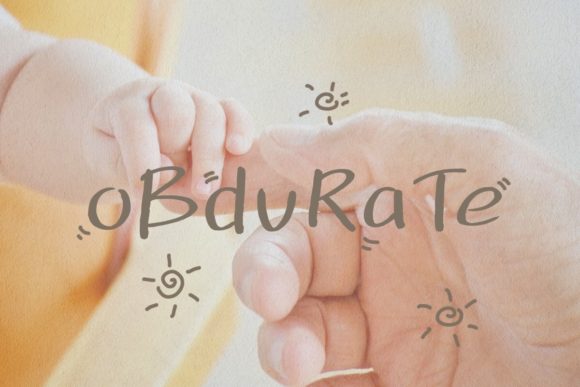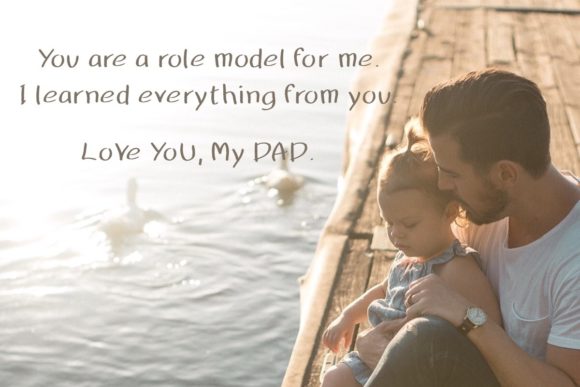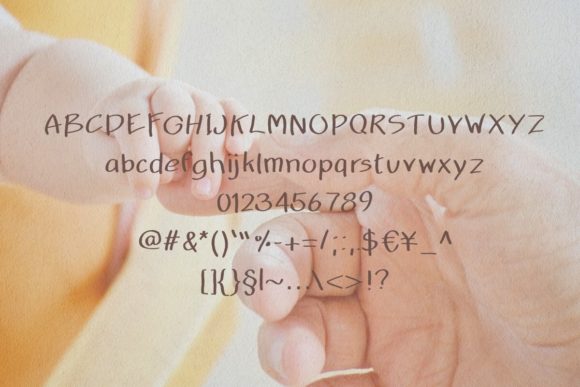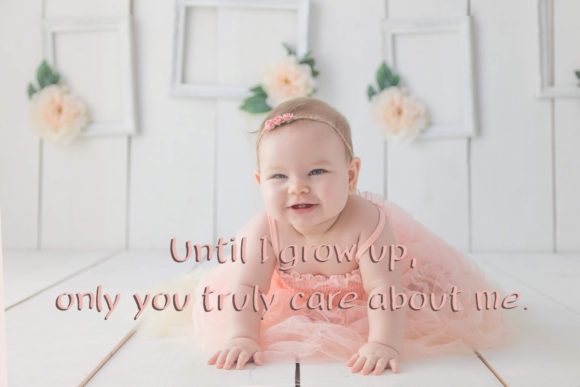
Obdurate Font
About Obdurate Font
Obdurate is a neat and friendly handwritten font that brings a casual and approachable vibe to your designs. Its informal style adds a touch of authenticity and uniqueness to your creative projects.
With its clean and legible letterforms, Obdurate strikes a balance between simplicity and visual impact. The font’s relaxed appearance makes it suitable for a wide range of applications, including social media graphics, invitations, greeting cards, posters, and more.
The strength of Obdurate lies in its ability to capture attention and engage viewers. The font’s informal and friendly nature creates a welcoming atmosphere, making your designs more approachable and relatable.
The simplicity of Obdurate makes it easy to incorporate into various design styles and themes. Whether you’re going for a modern and minimalist look or a playful and whimsical design, this font adapts seamlessly to different aesthetics.
Despite its casual appearance, Obdurate retains its visual appeal and readability. Each letter is carefully crafted, ensuring clarity and legibility even at smaller sizes. This allows your message to come across clearly and effectively.
Whether you’re working on personal projects or professional designs, Obdurate adds a touch of charm and character. Its friendly and informal style can help create a warm and inviting atmosphere, making your audience feel more connected to your content.
In conclusion, Obdurate is a neat, friendly, and informal handwritten font that instantly enhances the appeal of your creations. Its simplicity, visual impact, and legibility make it a versatile choice for a variety of design projects. Let Obdurate bring a casual and approachable vibe to your designs and captivate your audience.